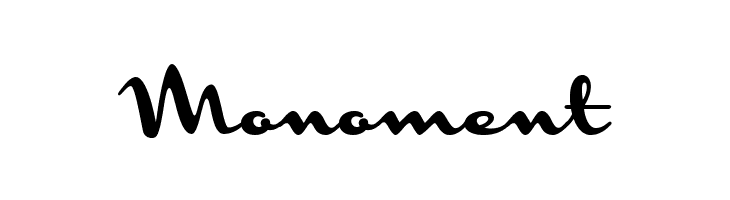
A playful, handwritten font with smooth, flowing lines and a whimsical style.
A playful and casual handwritten font with dynamic, flowing strokes.
A playful, whimsical script font with a handwritten feel.
A playful, bold font with a whimsical and dynamic style.
A playful, casual handwritten font with uneven strokes and a dynamic appearance.